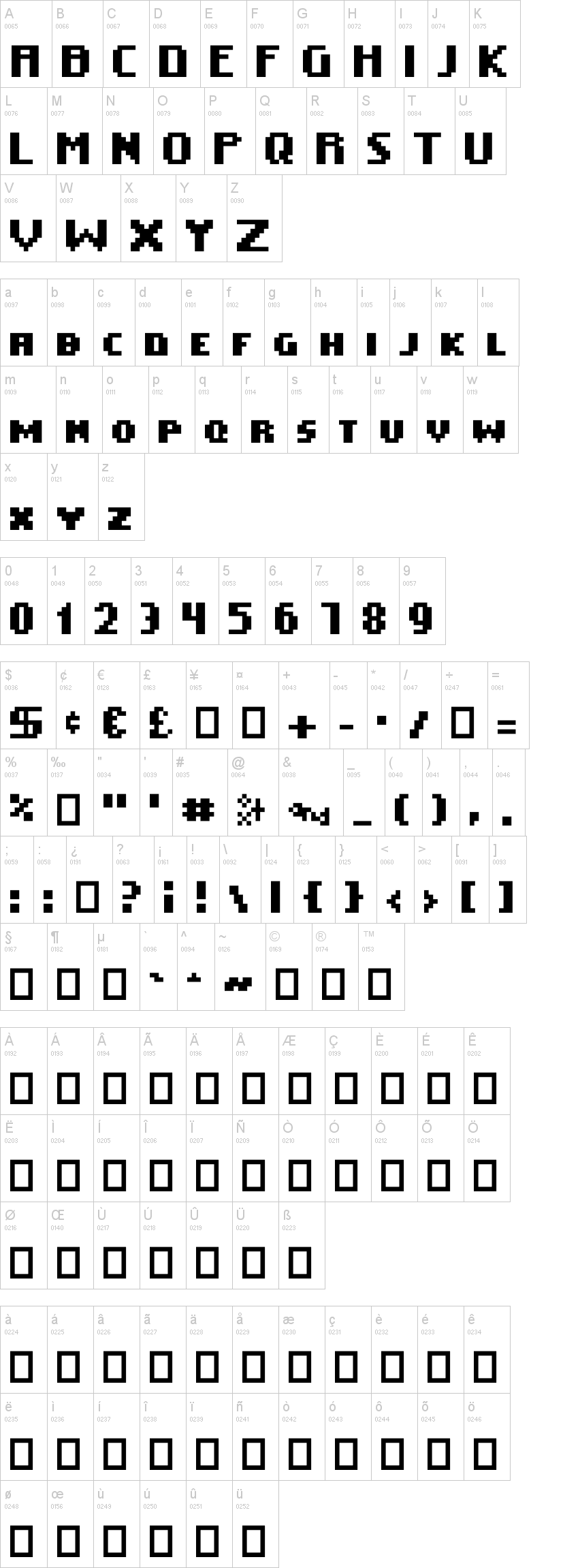
EaseOfUseOutline.ttfEaseOfUseShadow.ttfNote of the authorA font specifically made for use in Adventure Game Studios. Best viewed at 8 pixel size. Shadow and outline fonts are to be layered over the base font.